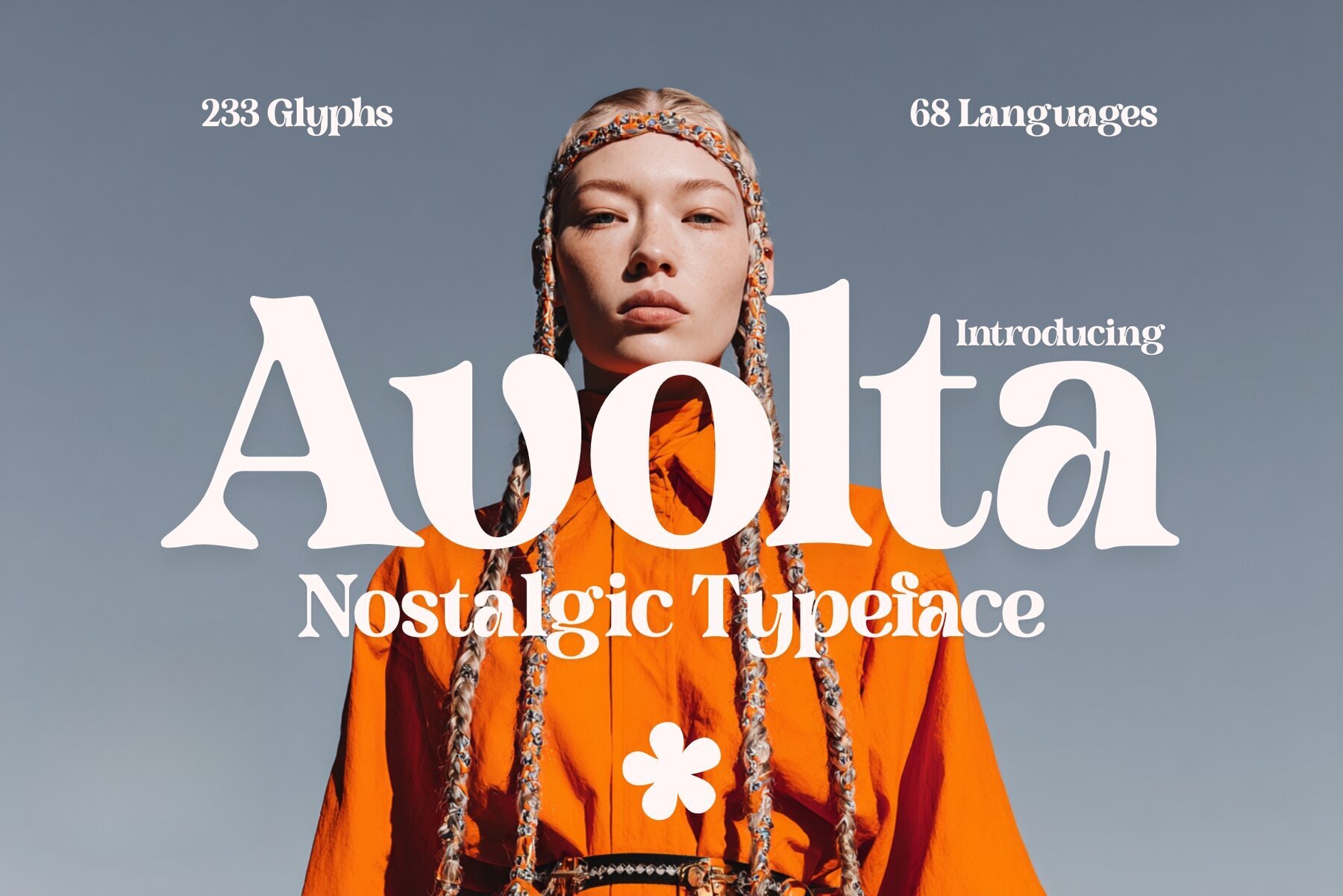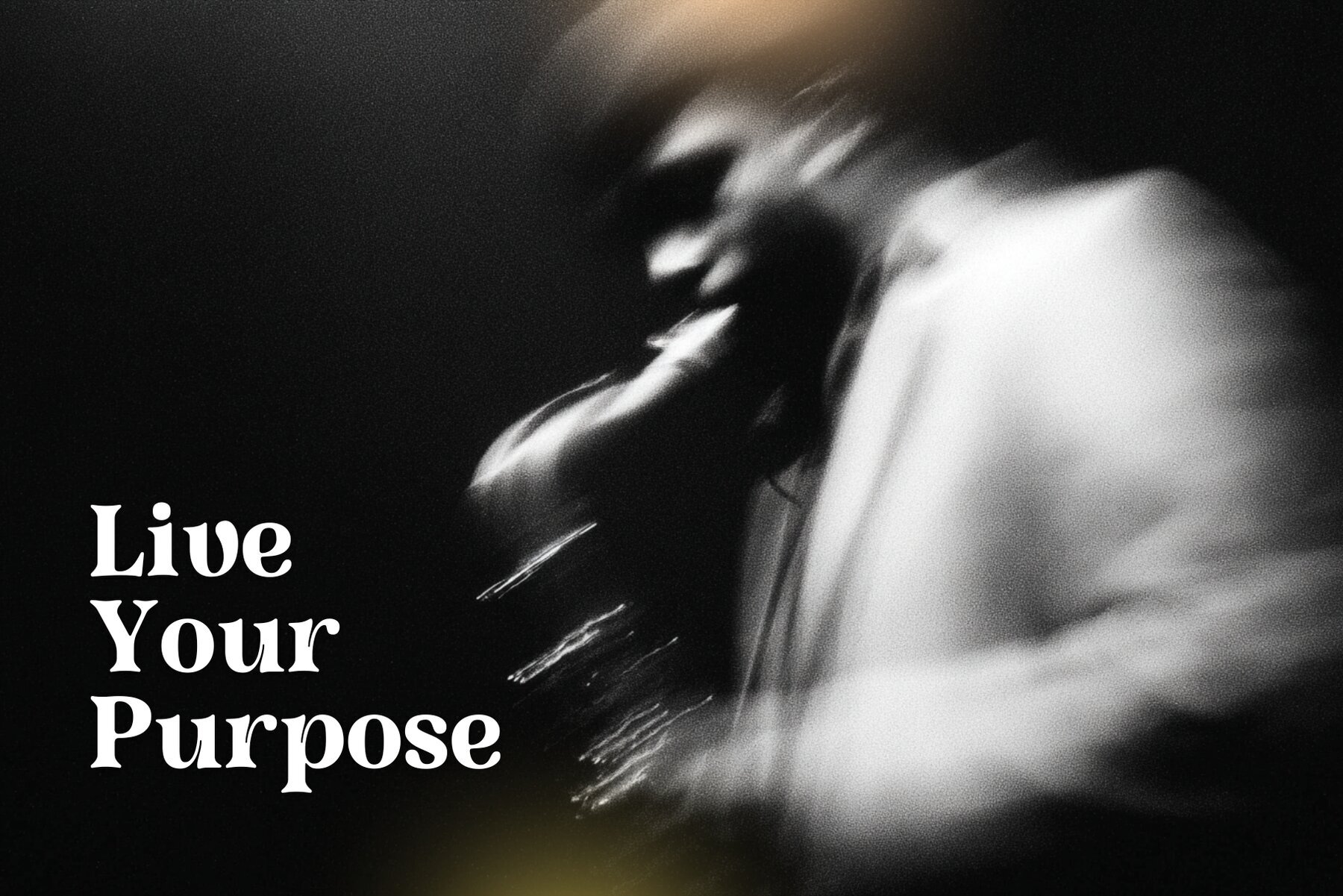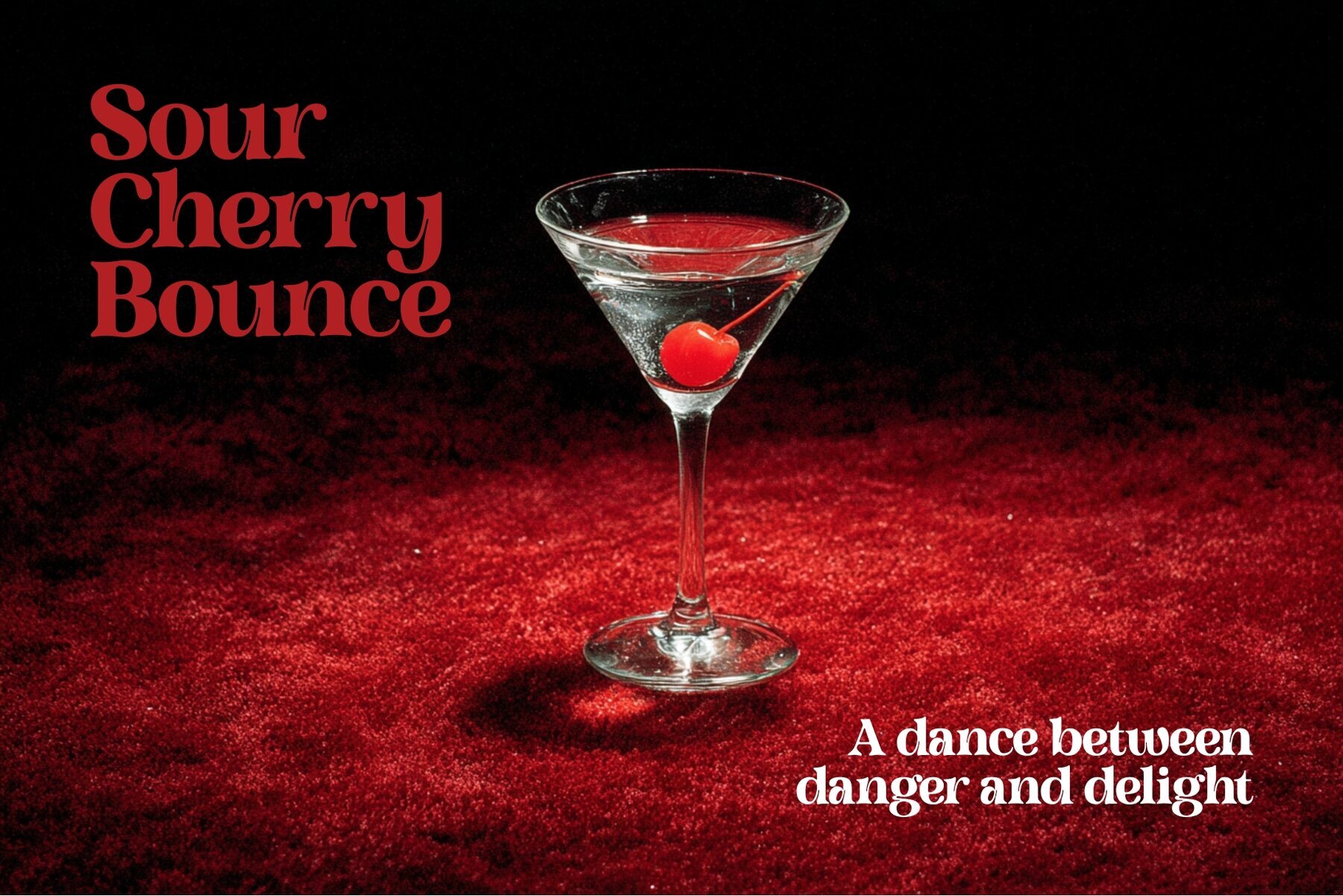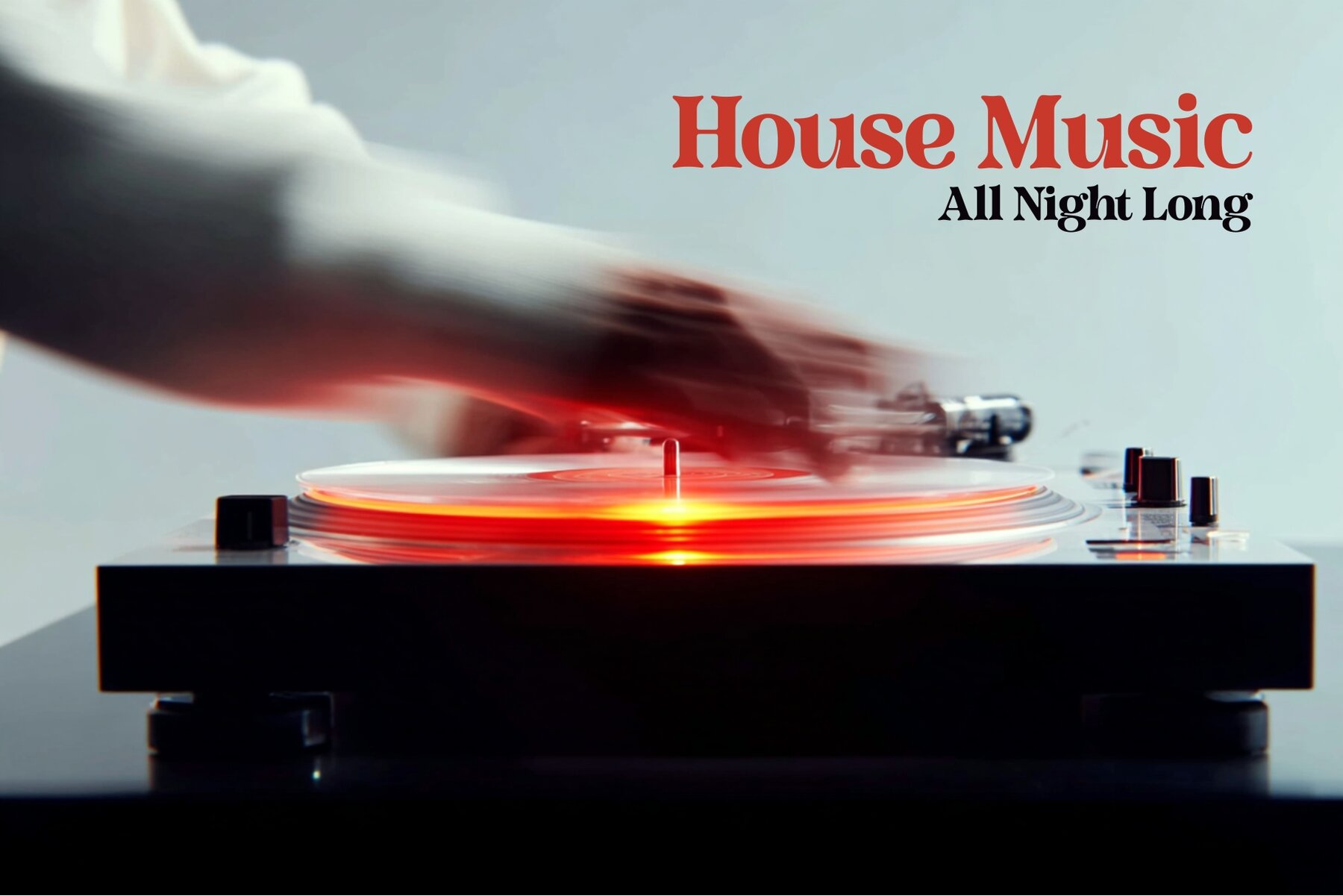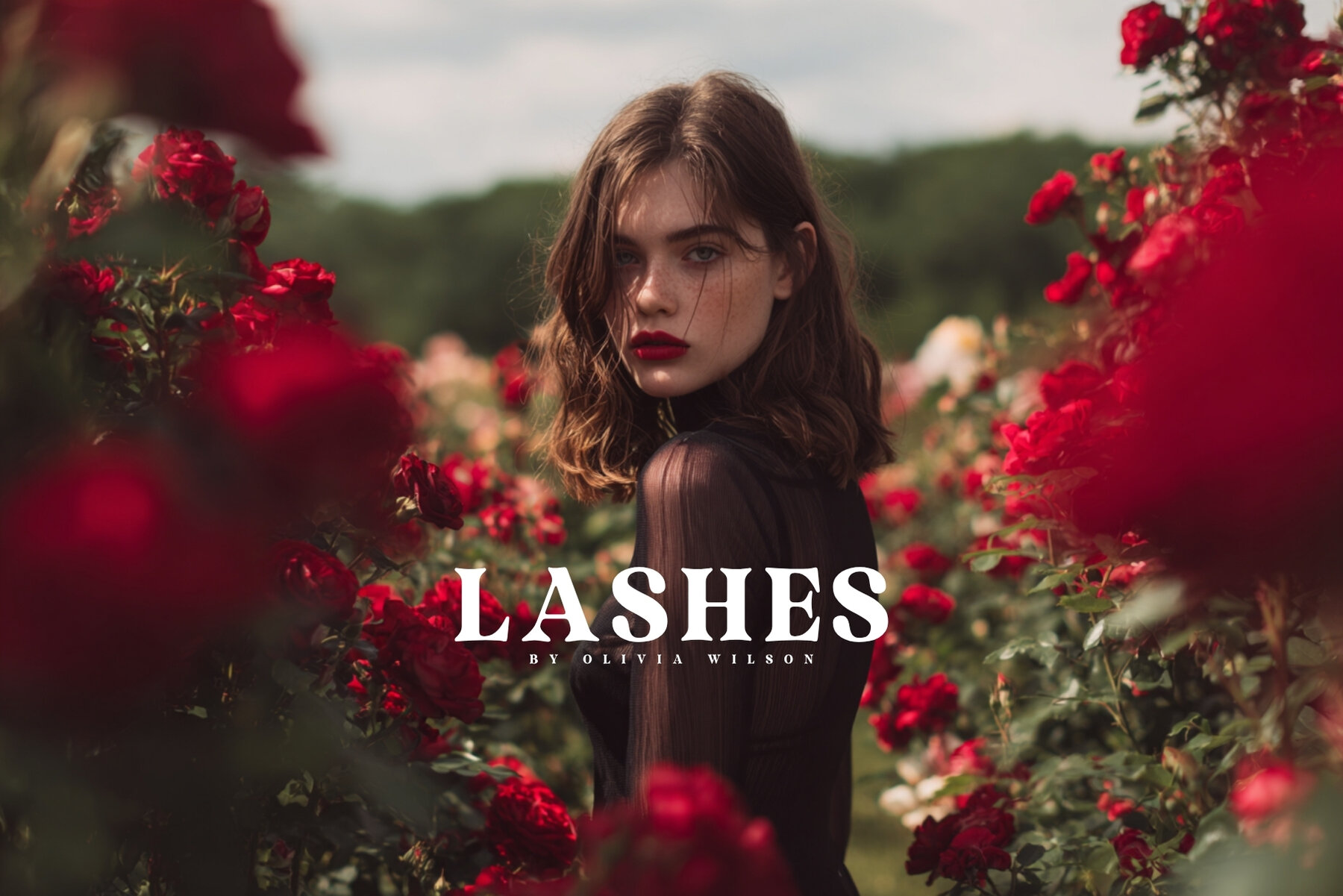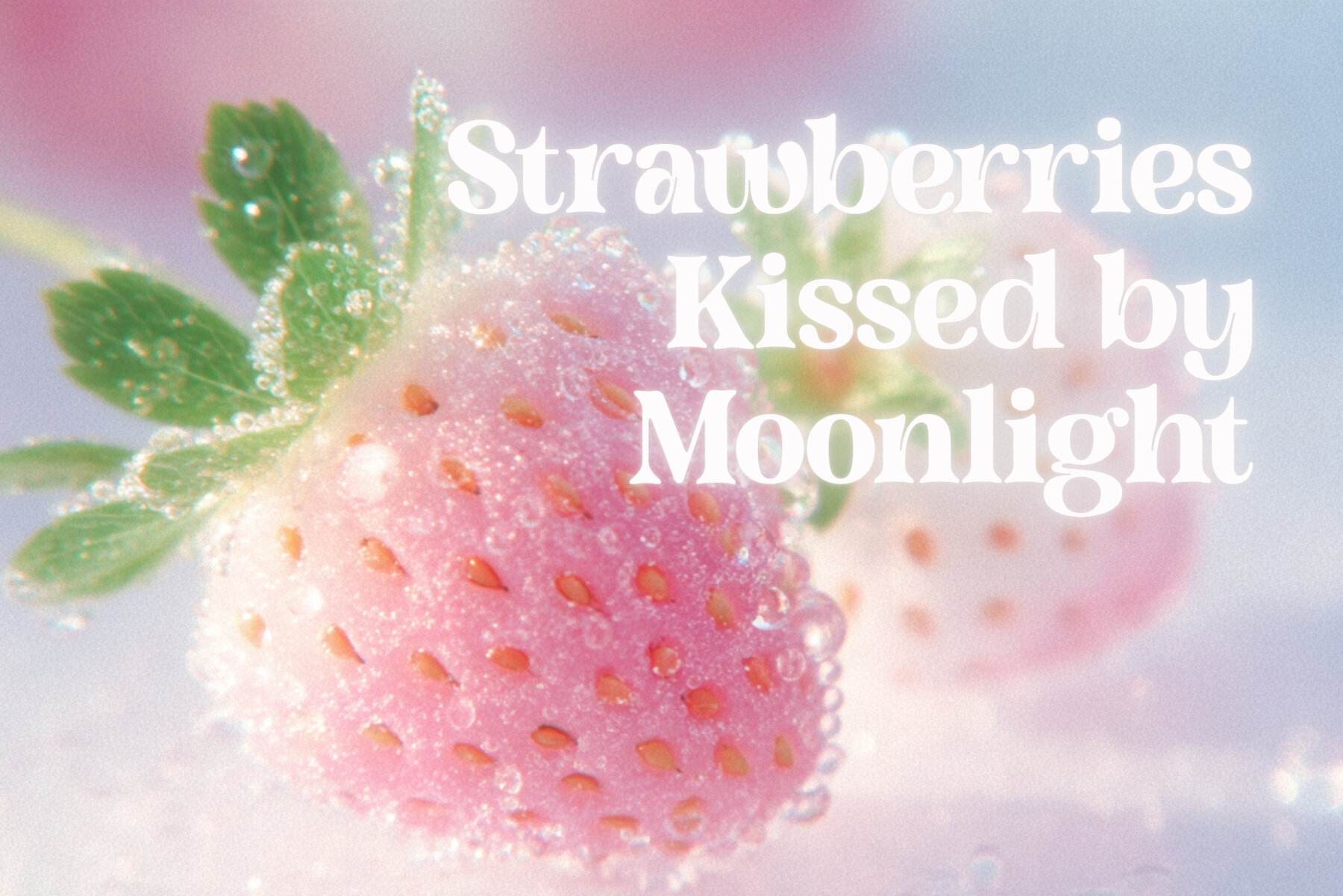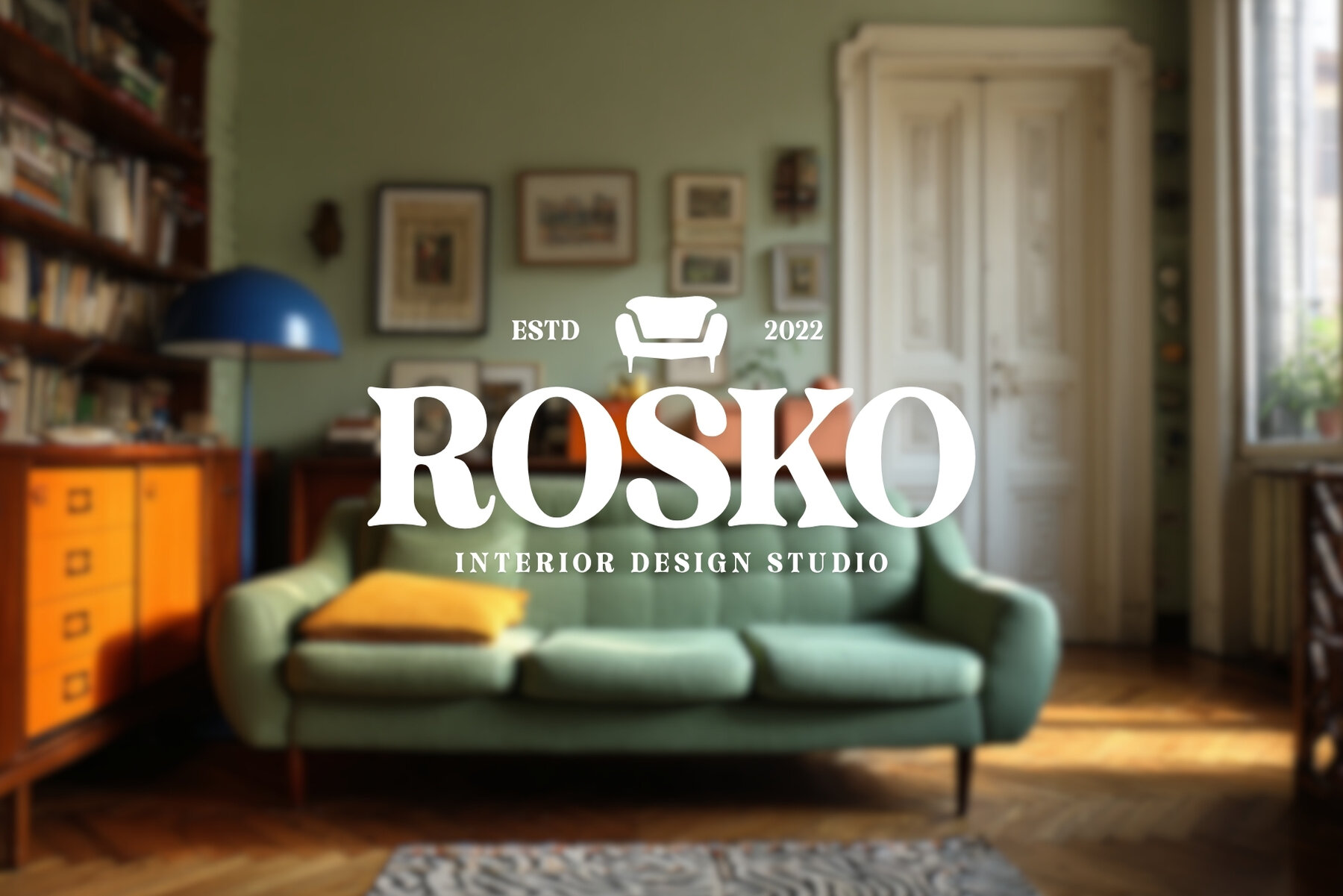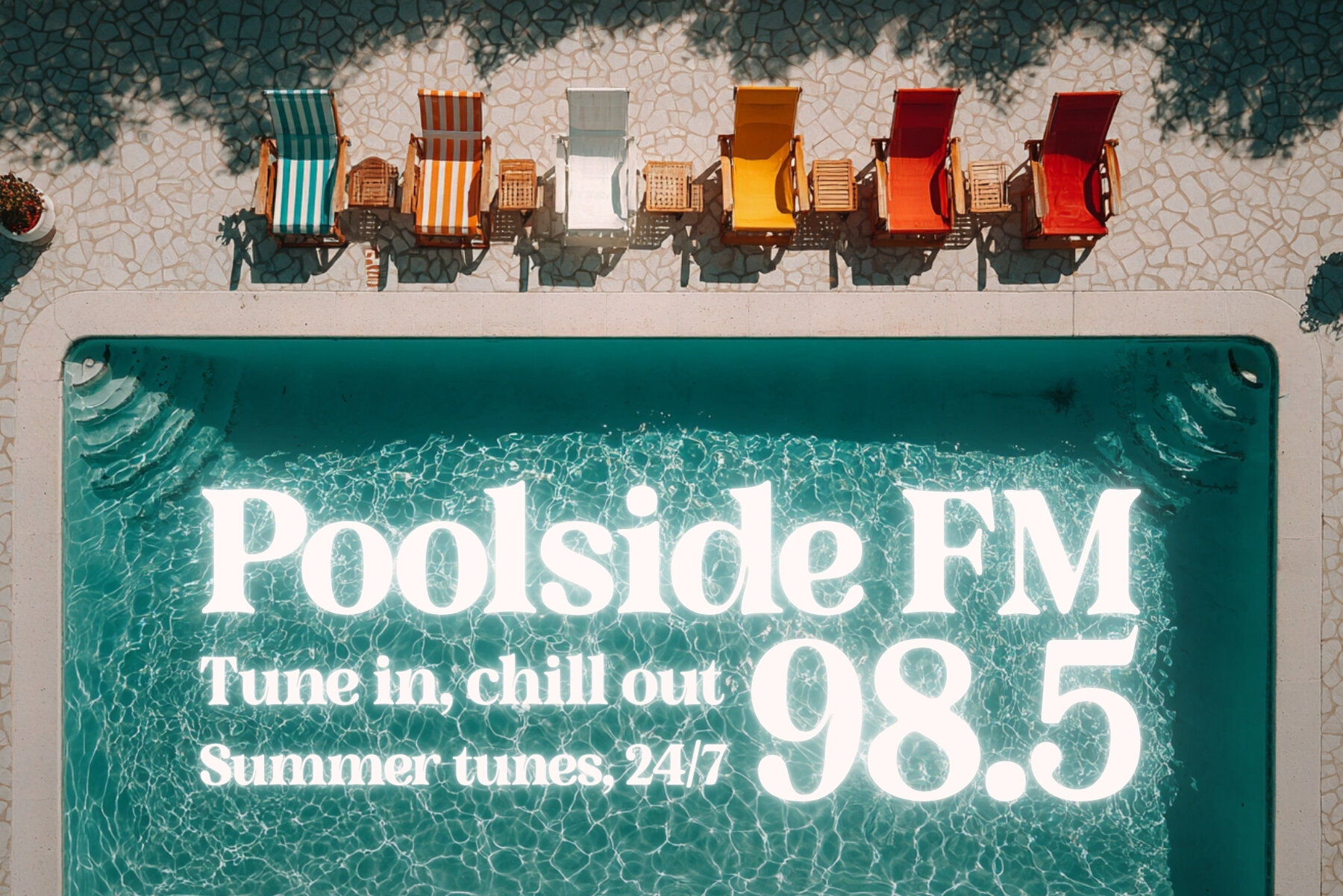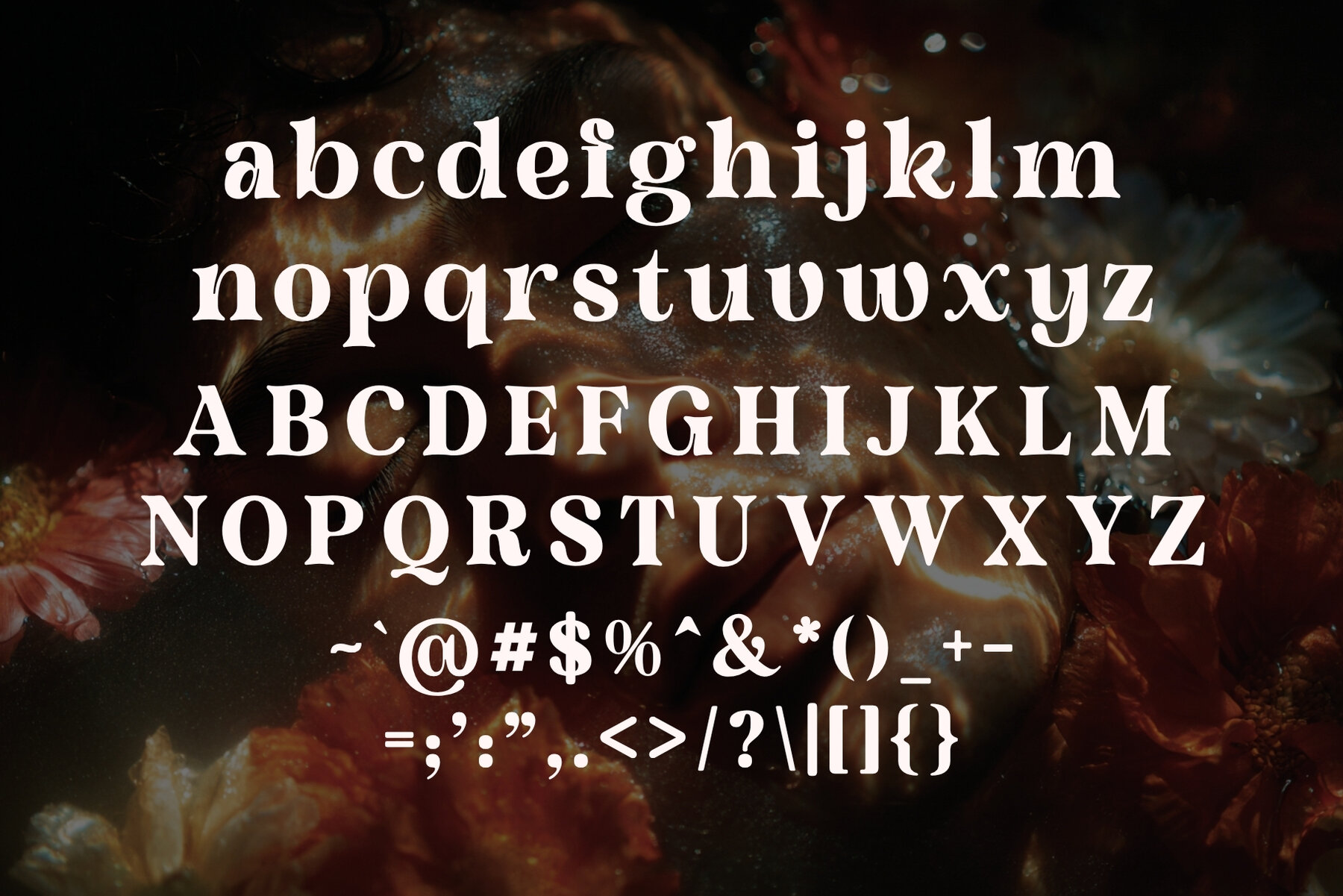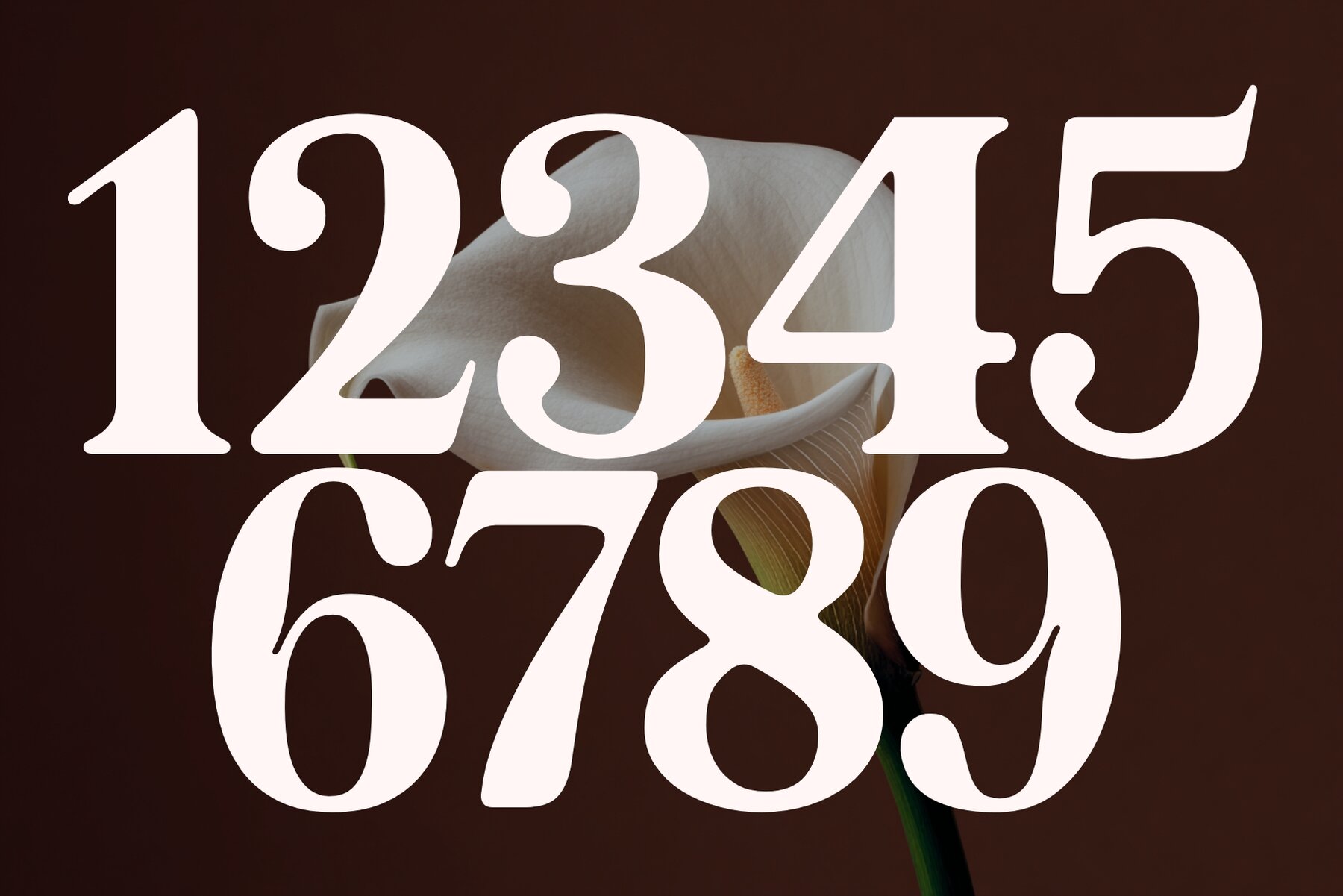
Avolta Font
Avolta Regular
Discover Avolta, the bold serif typeface that effortlessly channels the golden era of the 1960s and 70s. With its distinguished ink traps and high contrast, it combines vintage charm with contemporary luxury. Perfect for those who appreciate elegance with a retro twist, Avolta's commanding presence makes it an ideal choice for a wide array of design projects. Use Avolta to craft editorial headlines that stand out, brand materials that speak with confidence, or packaging that evokes nostalgia. Its elegant curves and striking serifs draw attention and maintain it, making it a staple for magazines, fashion campaigns, logos, and high-end design. Embrace the allure of Avolta and leave a lasting impression with every project.Step into the Timeless Elegance of Avolta